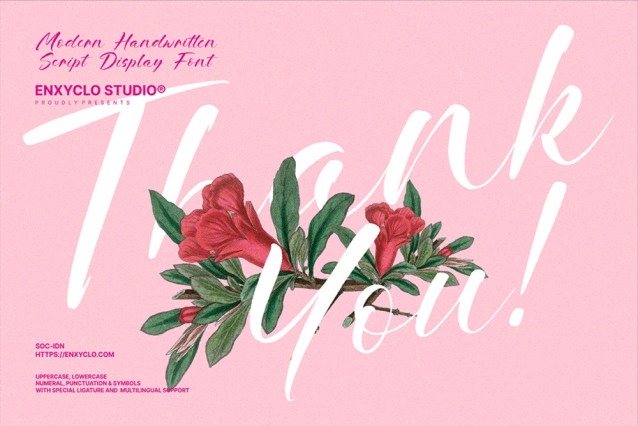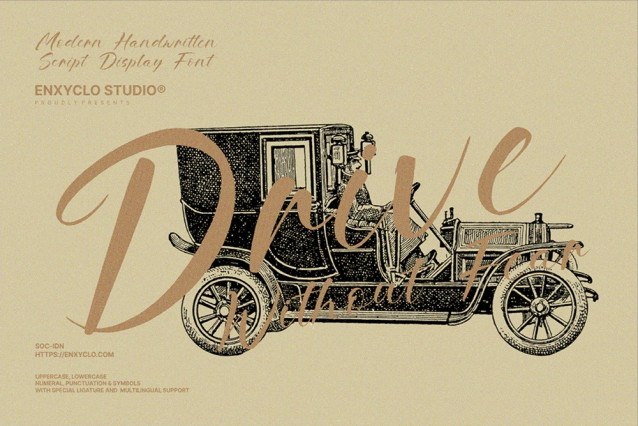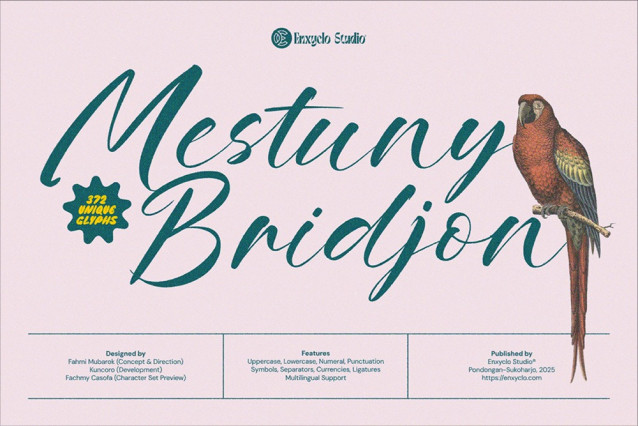
Mestuny Bridjon Font
Mestuny Bridjon Font is a modern handwritten brush script font with a touch of vintage elegance and modern flow. Crafted with artistic precision, this font is designed to bring a handcrafted, authentic feel to your designs. It’s perfectly suited for branding, packaging, editorial headlines, wedding invitations, and stylish quotes. Whether you’re a designer crafting a brand identity or a creator in need of a bold yet graceful font, Mestuny Bridjon offers the versatility and character you need.